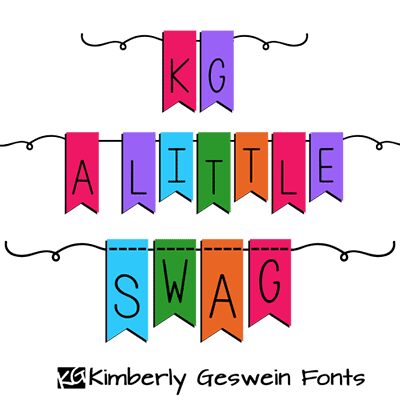
KG A Little Swag by Kimberly Geswein is a free decorative display font that sets slender monoline capitals inside tall hanging pennants. The narrow letters have softly rounded bends, and the repeated notched banner shapes turn each character into part of a continuous strand of bunting.
Its party-decoration look makes it especially apt for birthday invitations and event signage. It can also give children's packaging or classroom materials a cheerful cut-paper theme, with the letters functioning as both wording and ornament. The font is most convincing in celebratory titles where the banner motif belongs to the message.
The font contains bunting images that can be layered. Uppercase letters produce long bunting, and lowercase letters produce short bunting. Parentheses include tails for attaching the bunting, and the underscore character (_) provides a connecting piece for the top “ribbon.”
The greater-than character (>) produces long solid bunting, and the less-than character (